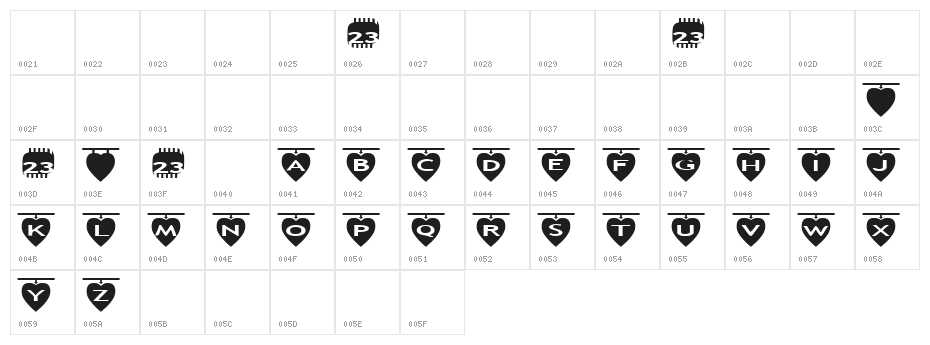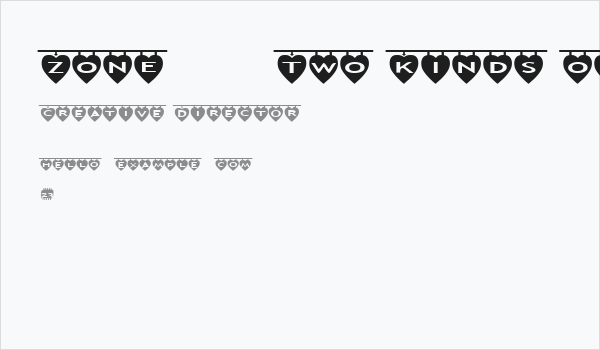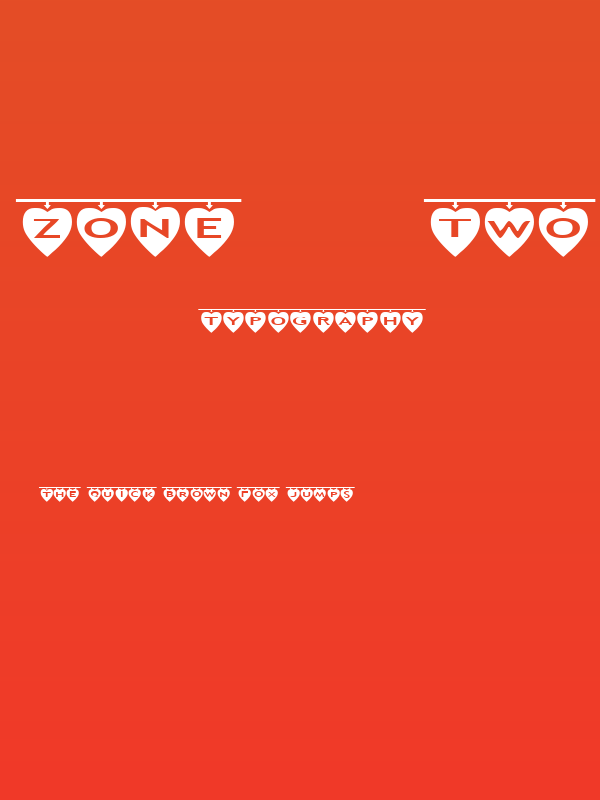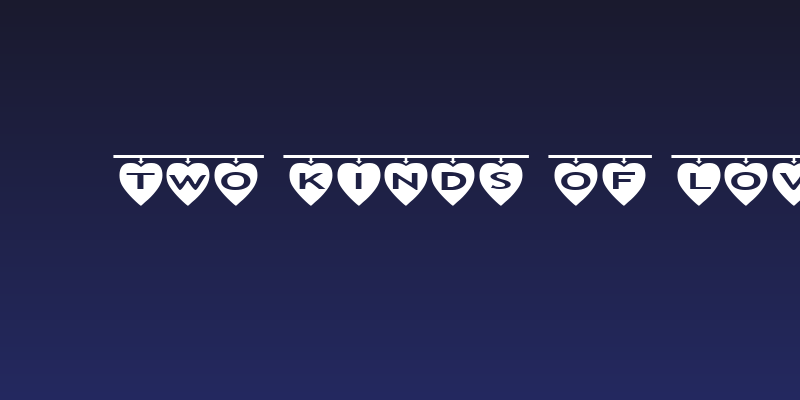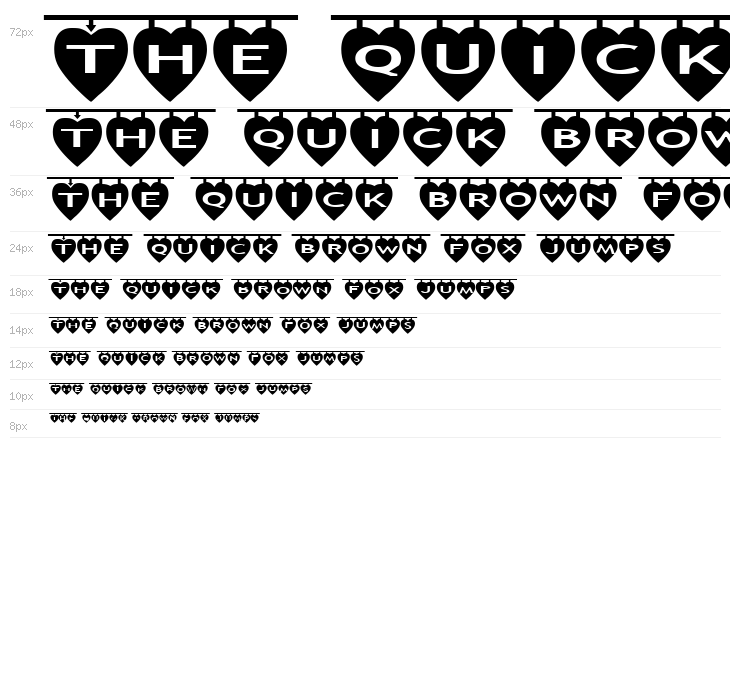
Zone23_Two Kinds of Love III Font
Zone23_Two Kinds of Love III Description
This font features a unique and playful design where each character is enclosed within a heart shape, creating a whimsical and romantic aesthetic. The letters are bold and uppercase, with a consistent thickness that ensures readability. The heart shapes add a decorative element, making the font ideal for projects that require a touch of love or affection. The overall style is both modern and decorative, suitable for creative and themed designs. The consistent size and shape of the hearts provide a uniform appearance, while the bold lettering ensures the text stands out.
| Proposed Projects | Ideal for Valentine's Day cards, wedding invitations, romantic event posters, and playful branding. |